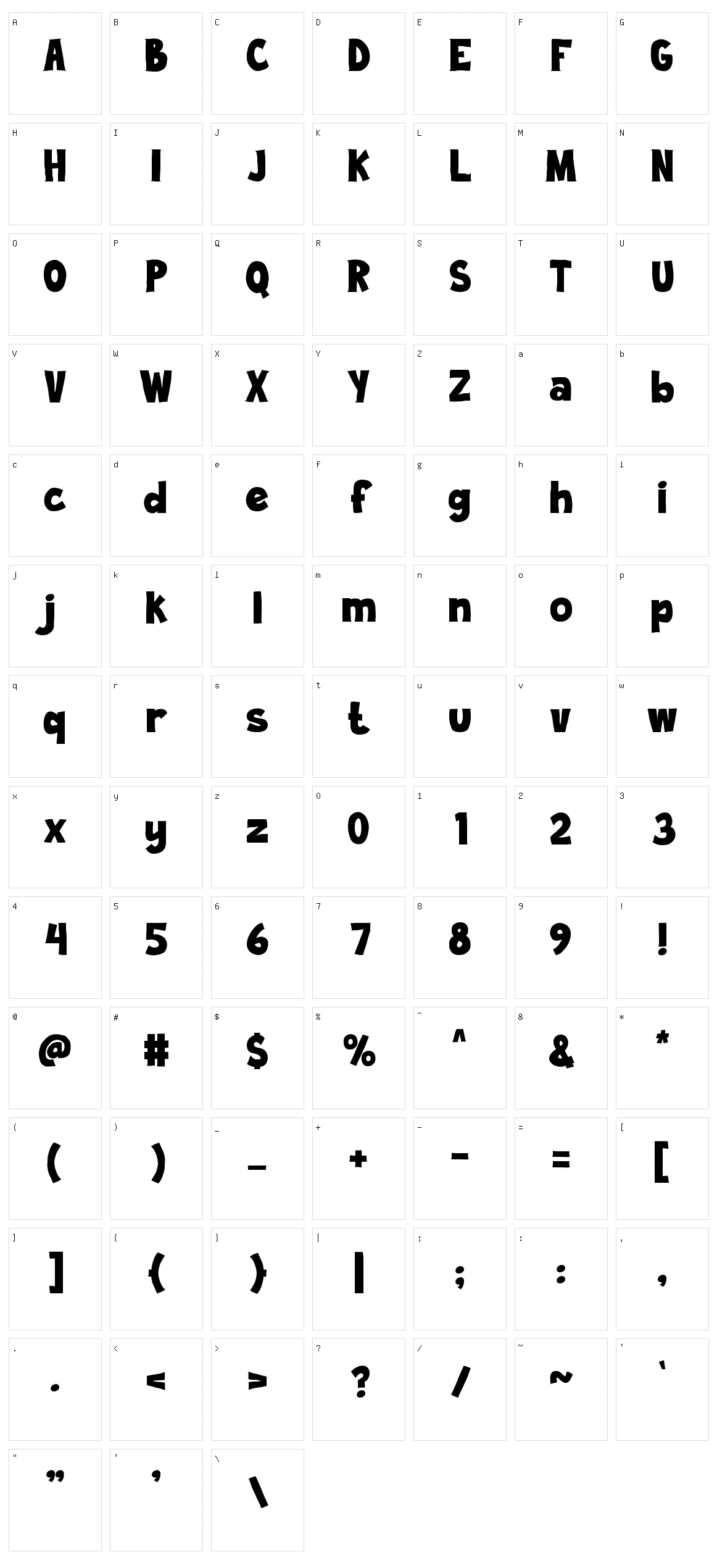
The free font Rough Badge is carefully designed by Pinisiart, showcasing a thoughtful balance of creativity and usability and falls under the Cartoon font style. When you download the ZIP file, it contains only 17.82 KB of font files, making it lightweight and quick to download. Please review the license details below to understand permitted usage and distribution rights. If license information is not available, we recommend using this font for personal projects only or contacting the author directly for commercial usage permissions.